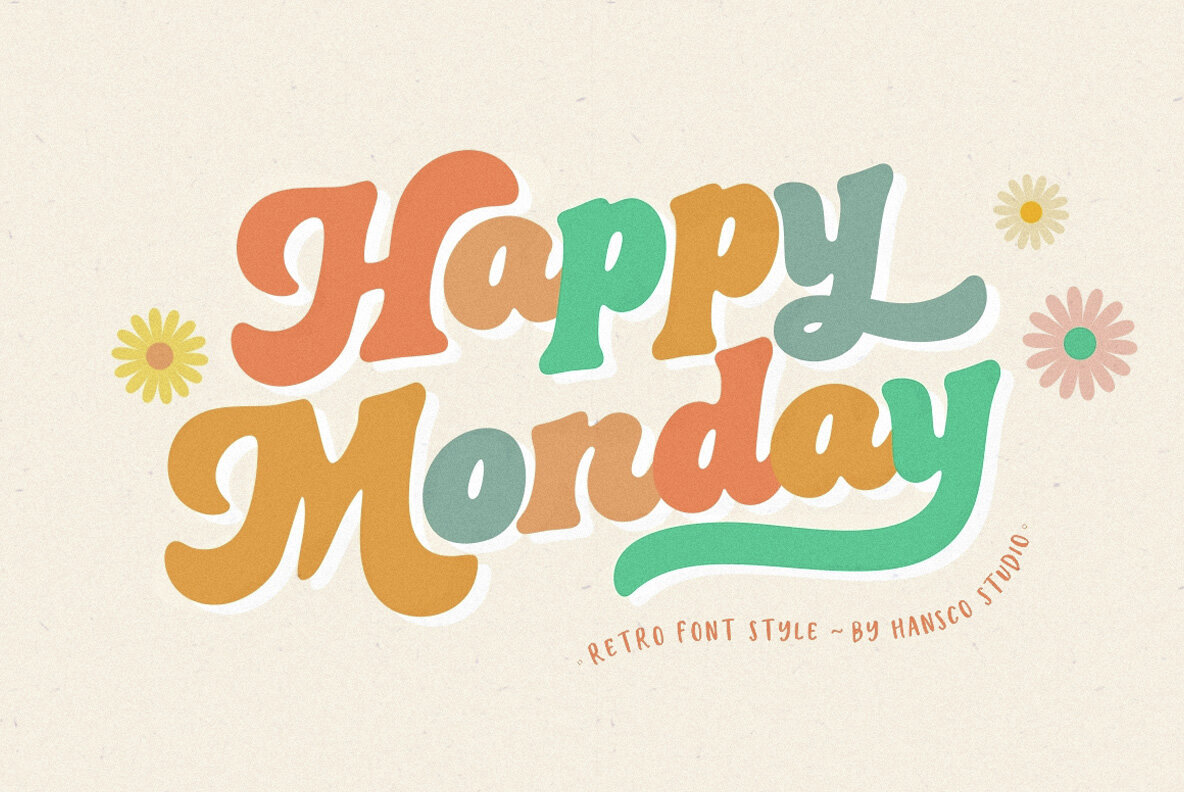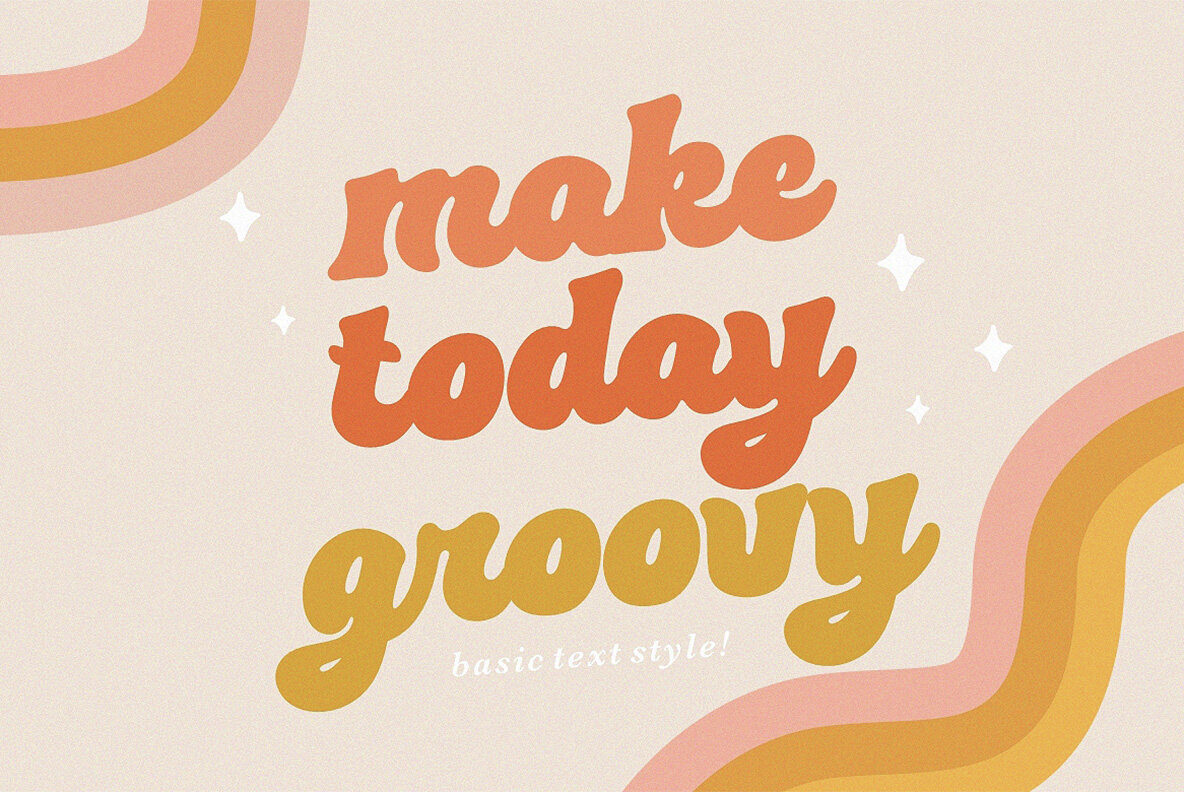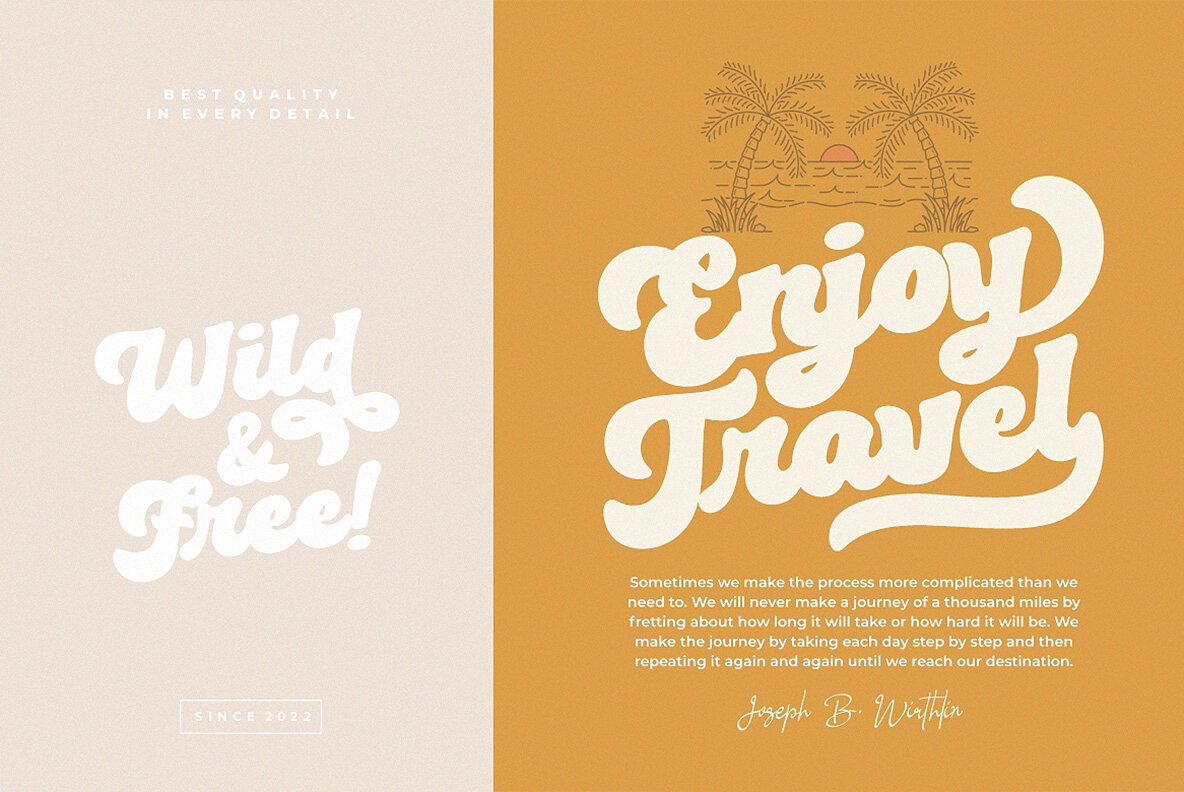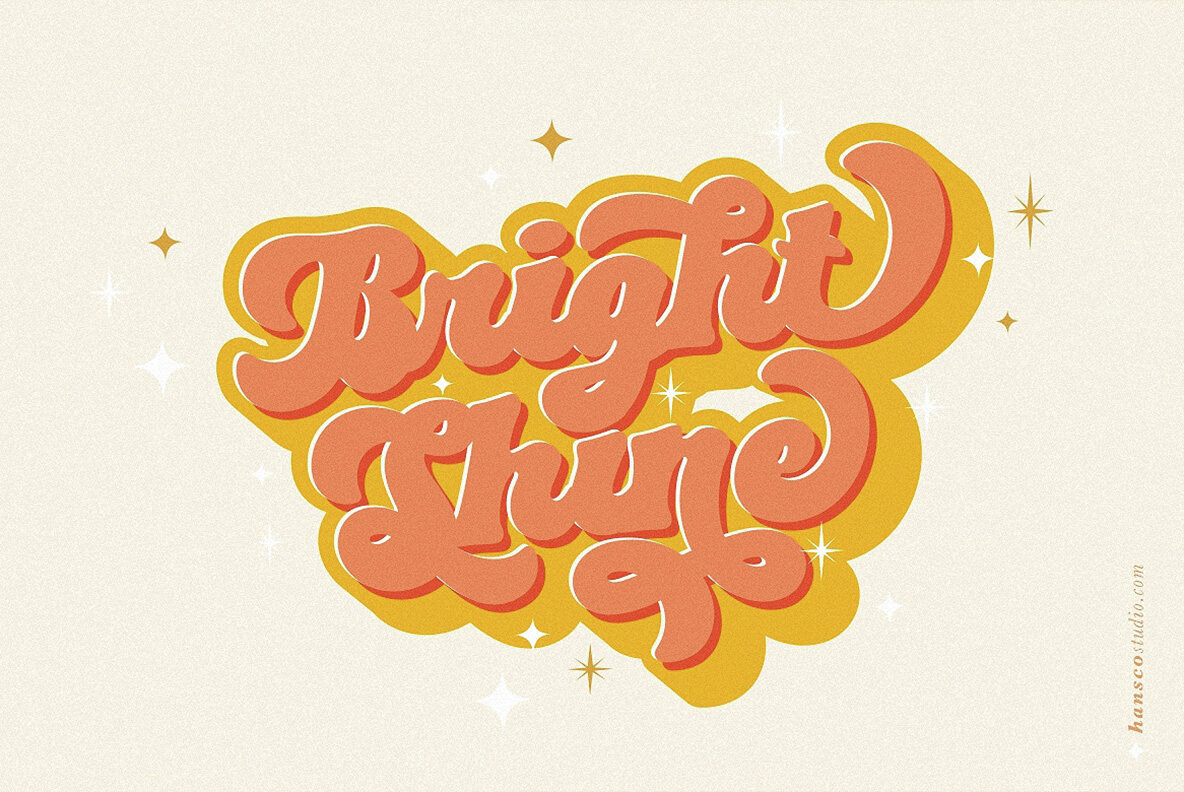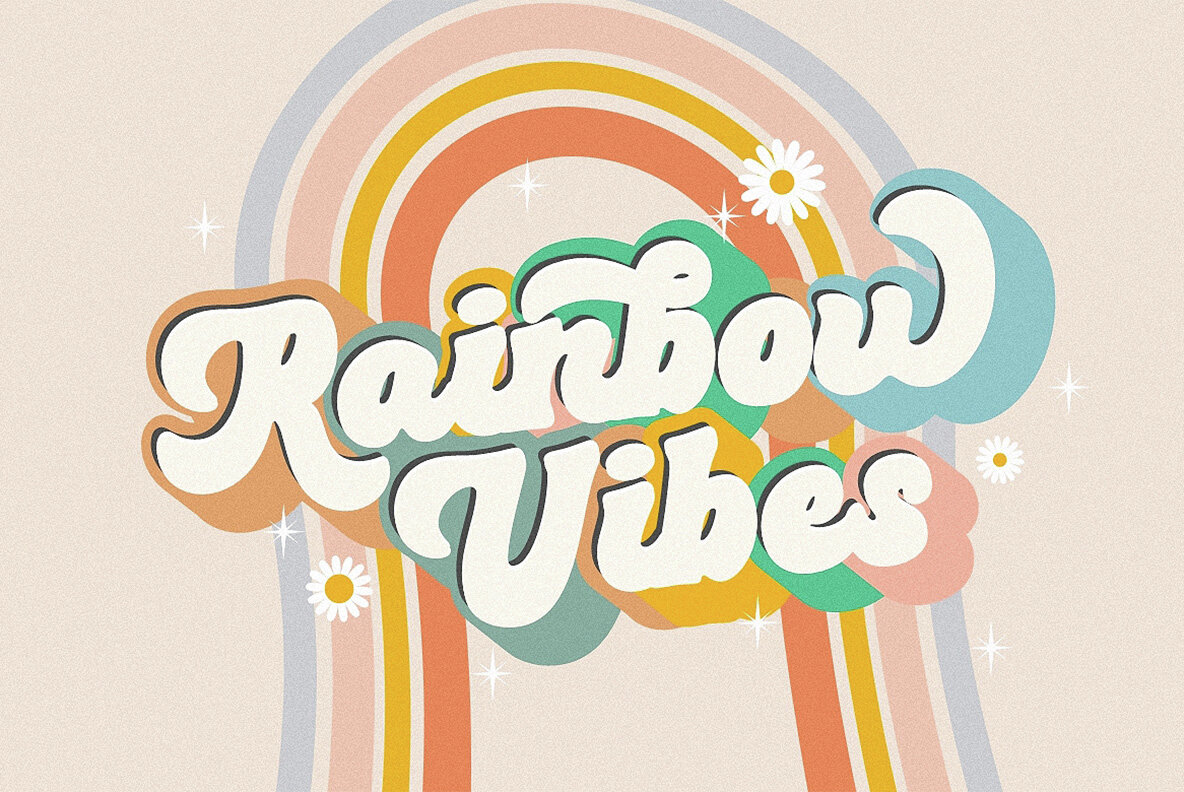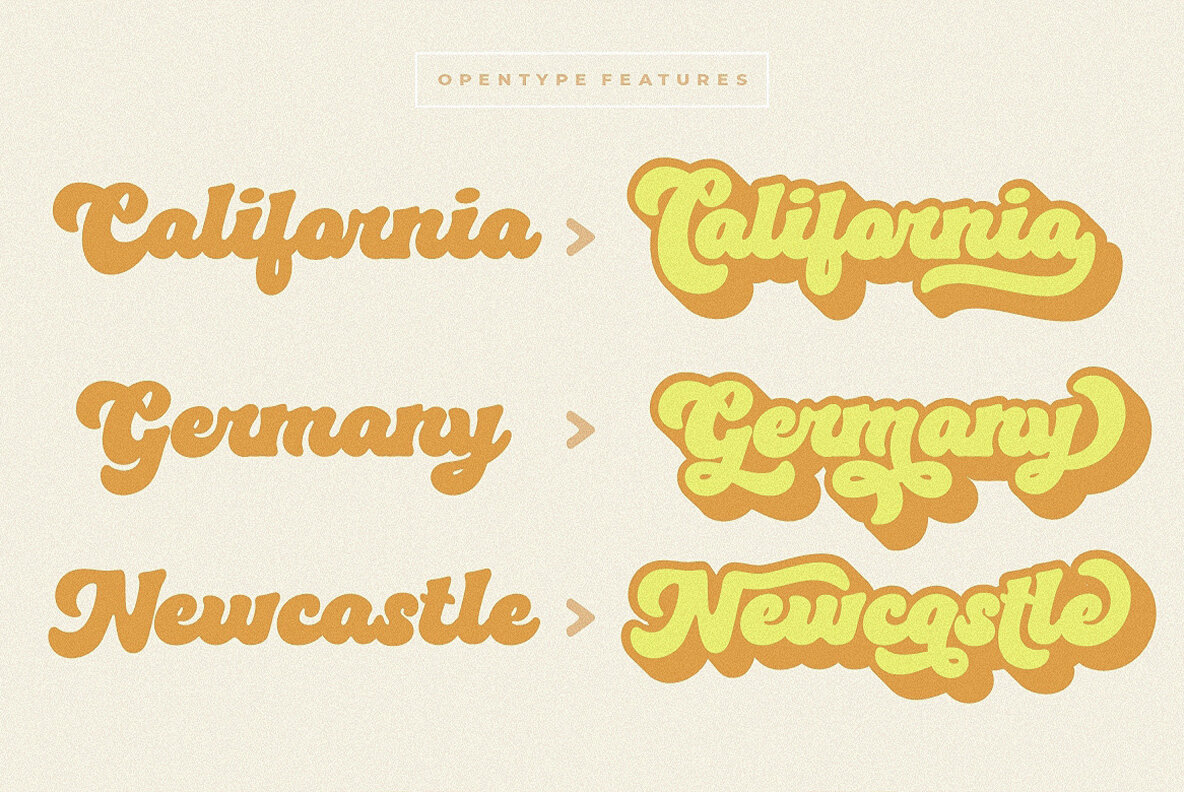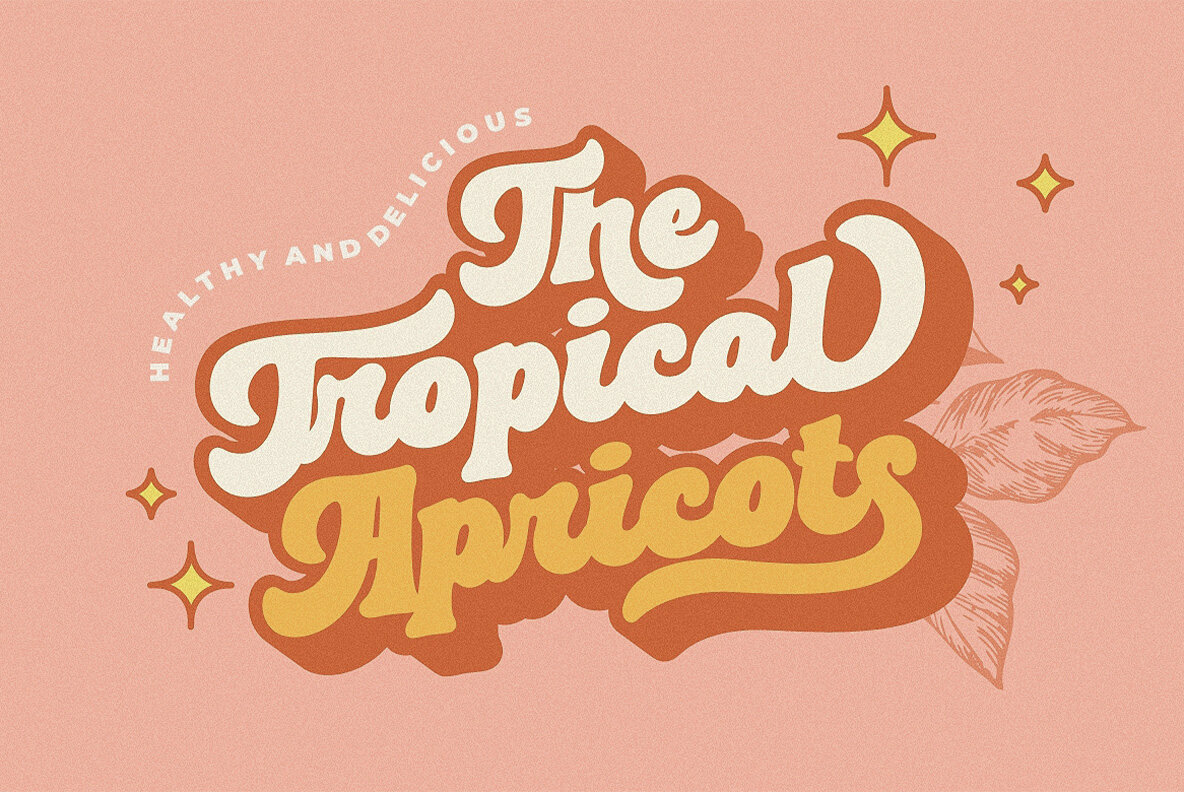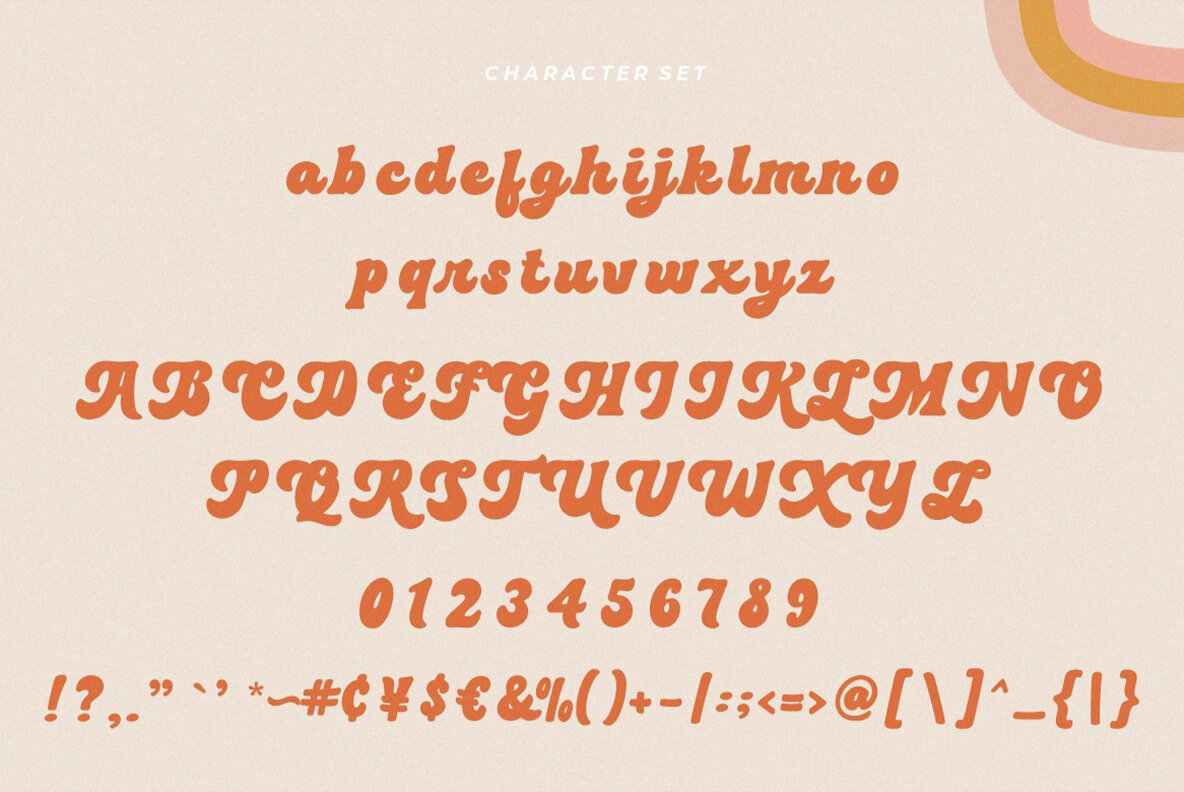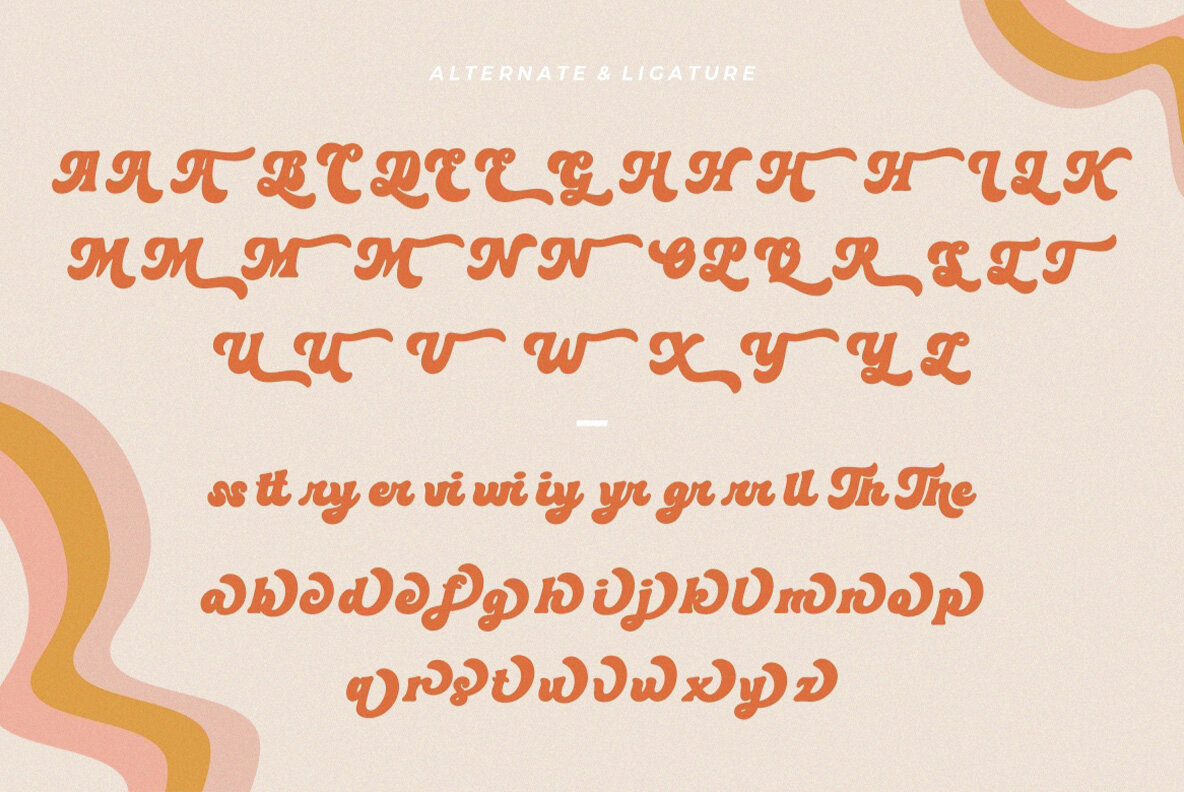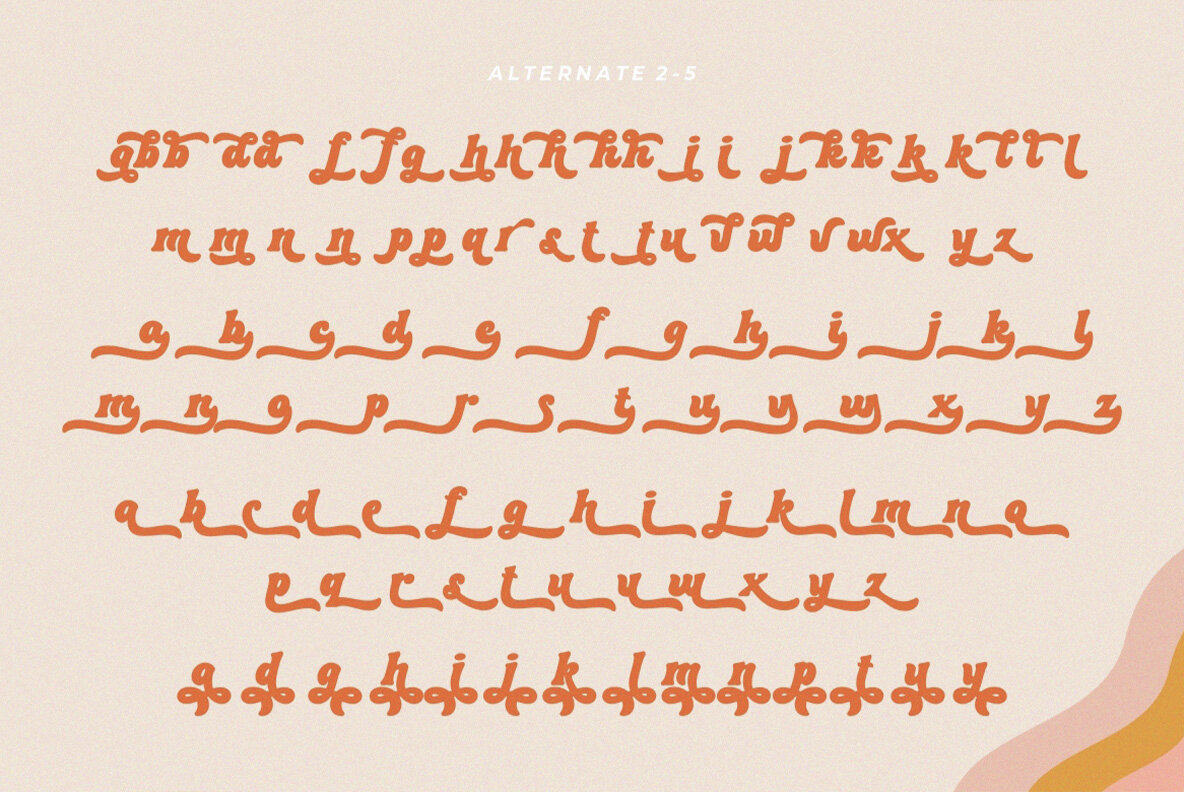
Happy Monday Font
Happy Monday Regular
Happy Monday Shadow
Happy Monday is a bold, clean font with a modern retro style distinguished by its smooth, rounded corners. The unique character shapes capture a sense of playfulness while delivering a contemporary look. This typeface includes both a regular and a shadow version, offering flexibility for different design applications. Featuring a complete set of uppercase and lowercase letters, numbers, punctuation, and multilingual support, this font adapts easily to a wide range of projects. Its approachable form makes it a strong choice for creative branding, standout headlines, logo design, and apparel graphics. Happy Monday also brings originality to packaging, posters, magazine layouts, and digital platforms like YouTube and Instagram.Happy Monday Retro Font